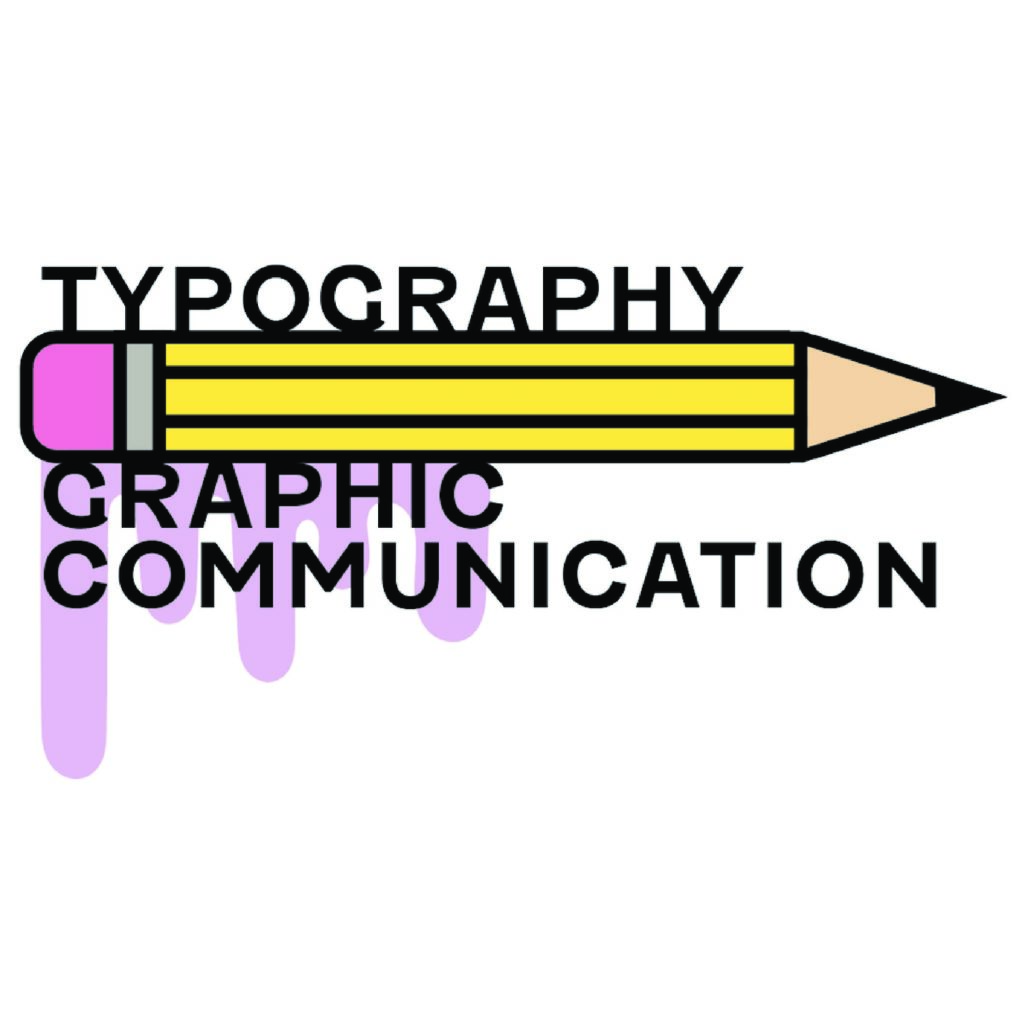
Ideas and process
This project involved getting to know Illustrator and using the new skills to create three designs for a Typography and Graphic Communication sticker.
Idea 1
I knew I wanted to make a small illustration of a pencil to keep in the theme of my other projects to include in all of my sticker designs. I did this through using shape tools, and setting the stroke to be quite thick as I like the look of the chunky outlines. When I was finished I grouped the design together so I didn’t keep accidentally moving parts of my work around. My first design was primarily inspired by my photoshop final design, so I tried moving the pencils around into a way that would look good, this was unsuccessful at first but I did get a chance to experiment with envelope distort. Eventually I found a composition that I liked. Then I had to add some text, I did this by drawing a circle (holding shift so it was perfect) and using the type on a path tool to make the type curvy. Then to make the type stand out I drew a red shape behind it using the paintbrush tool (turning the accuracy down so the result would be very smooth).
Idea 2
For my second design I reused the pencil I made, keeping just one this time for simplicity, I used it as a line to base my text on. One thing I struggled with was making the text fit, I originally wanted it to be bigger than this but instead I had to settle with smaller text, to compensate with this I used the envelope distort tool to warp the last word so it would be a bit more interesting. I then added some drips using the paintbrush tool. To finish off I made a gradient in the background so it wasn’t just one flat colour. I think if I had more options available to me I would make the background shiny, too make it more fun. Hopefully the gradient can replicate this.
Idea 3
I wanted to change up the colour scheme a bit with this one so I decided to make a rainbow come out of a broken pencil. I used the knife tool a lot in this, to cut the shapes in half so I could change their colour individually. I experimented with making the type flow out on the rainbow using the type on a path tool, but ended up deciding not to do this as it wasn’t very easy to read. I added a flat background to not complicate the design too much. Whilst I still like this design, it is my least favourite out of the three, looking back I should have definitely increased the stroke width of the outline.
I knew barely anything before starting this task so I learned so much more than I did in my indesign and photoshop tasks. I improved my skills with creating images and icons myself, I usually rely on just drawing things freehand and on paper, but having to work in a completely digital format was difficult, although I soon figured it out. I’d like to try working like this but with a less geometric shape, maybe seeing how far I can go with using it illustrator as a tool for artwork. I think to improve my work I should experiment with the different brushes and textures that illustrator provides rather than sticking to one. This will make me able to achieve a more interesting (and less flat) design in future.
Software tutorials
I used the tutorials recommended to us, I found the using layers videos helpful, even though the things being discussed weren’t too different from using layers in photoshop it was still good to get a refresher. One interesting thing I found was that the layers aren’t just one big group, you can expand the layer using a drop down arrow in order to interact with all the different elements, this is different from what i’m used to in photoshop, where the layers are one thing rather than individual groups. I think I prefer the way it is set out in illustrator as it means I can interact with each individual element on the layer (for instance, lock it) without affecting the other shapes.
Whilst creating my designs I encountered some issues that I had to fix, when this happened I found some tutorials online to help me. It’s difficult to find quick tutorials on youtube when i’m looking for knowledge about how to do a specific thing because they are usually longer than they need to be so it can be a time waster, but the ones I found were quite good. I think in future I should definitely watch a full tutorial as whilst I have learned the basics, there are still so many tools in illustrator that I have not yet used, meaning there are still some gaps in my knowledge that stop my designs reaching their full potential.
I found this one helpful when making my first design as it taught me about the type on a path tool.
this one wasn’t as helpful as it was made on an older version of illustrator, i got the main ideas from it though, and it helped me create the rainbow’s outline in my third design.
this one was useful as the polygon tools in photoshop and illustrator are slightly different as it isn’t quite as obvious in illustrator how to change the settings. Although I did only need to watch a couple of seconds of this one before I realised what I was doing.
resources for research
The resource we were recommended to look at for inspiration was Adobe’s ‘Design a brand system’ with Javier Garcia. This was helpful to me because it was interesting to have a look at the design process, sketching out ideas and turning them into a simple illustration that will somehow convey the ideas of the brand, or in the case of this project, Typography and Graphic Communication. It was good to start with, however I know I wanted to add more detail to my designs than was shown in the tutorials, so I had to look elsewhere.
However, I wanted to find some more inspiration that was more specific to sticker design, I started by looking on Pinterest and google images for a start. I am quite inspired by a cartoonish, simplistic look so the first designs that caught my eye the most were bright ones that had very strong outlines, almost childish but in a good way. I thought it would be best to go with that kind of look, because it meant I could still have fun whilst making smooth looking designs that weren’t too busy, also they would stick out, which is a good thing considering stickers are usually quite small and stuck among a group of other stickers (for instance, on the back of a laptop) so I wanted to make sure my designs wouldn’t get lost.